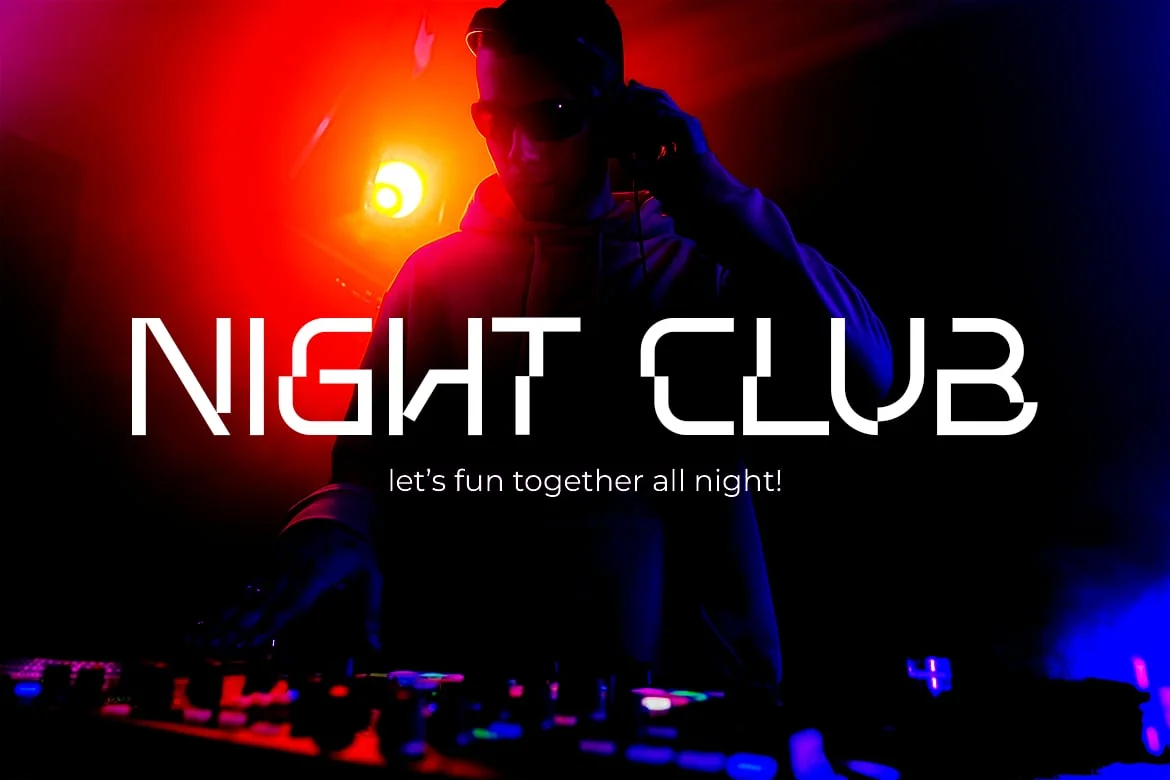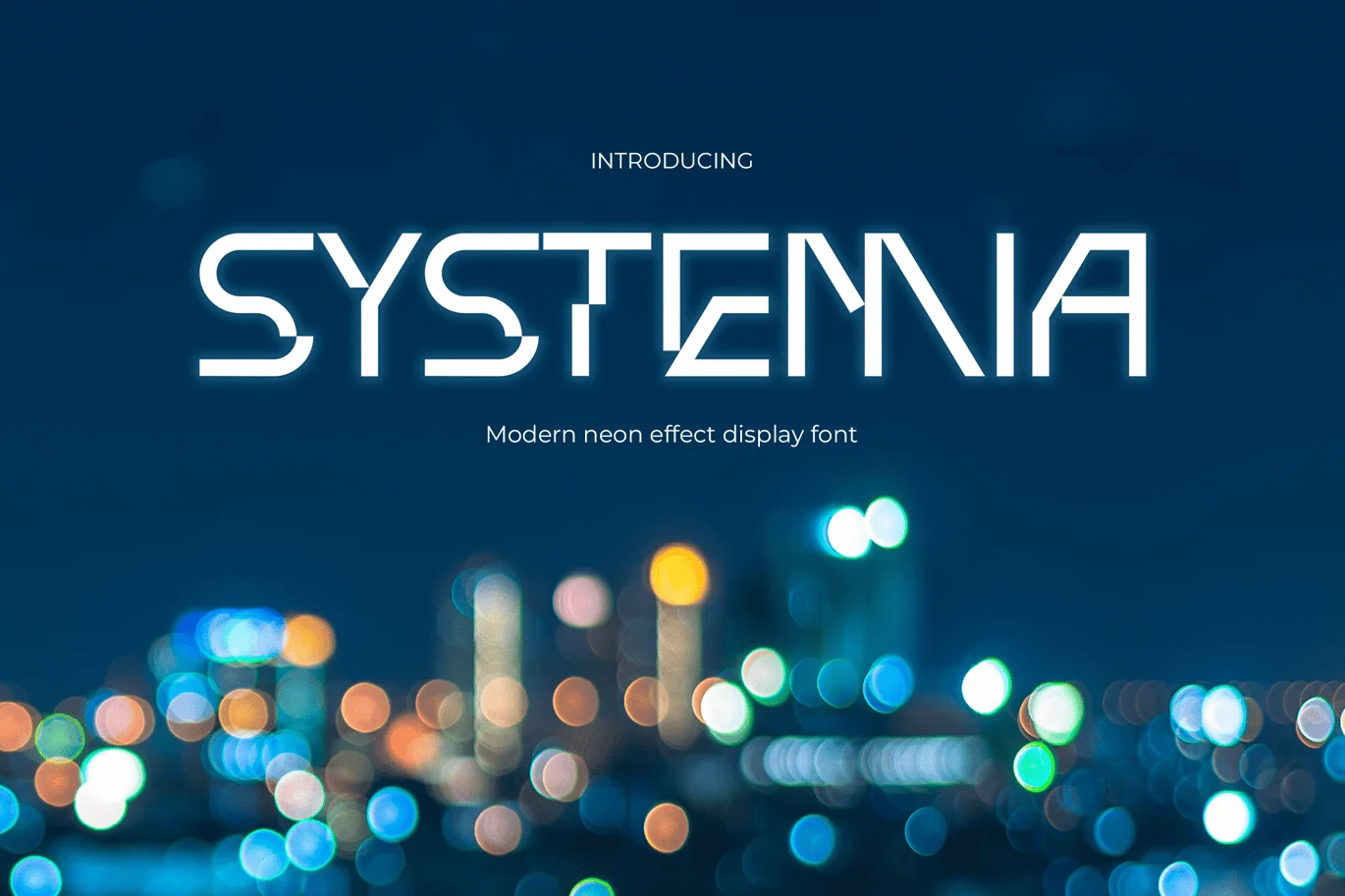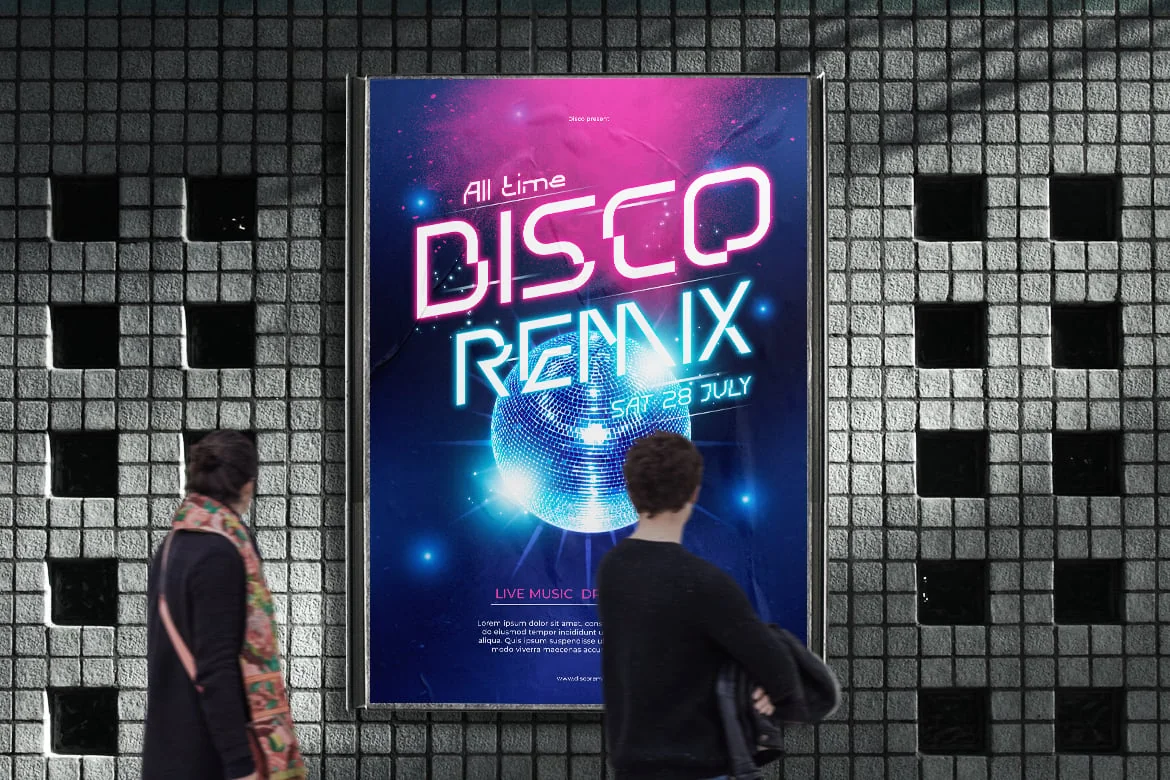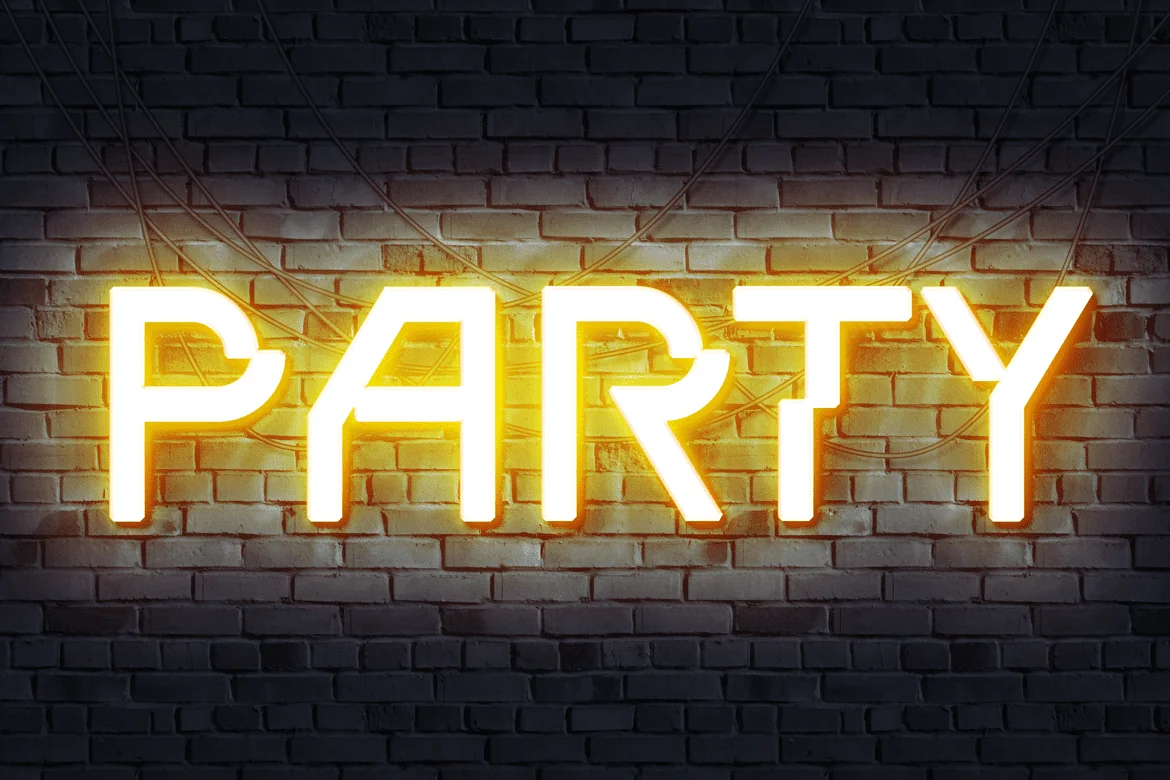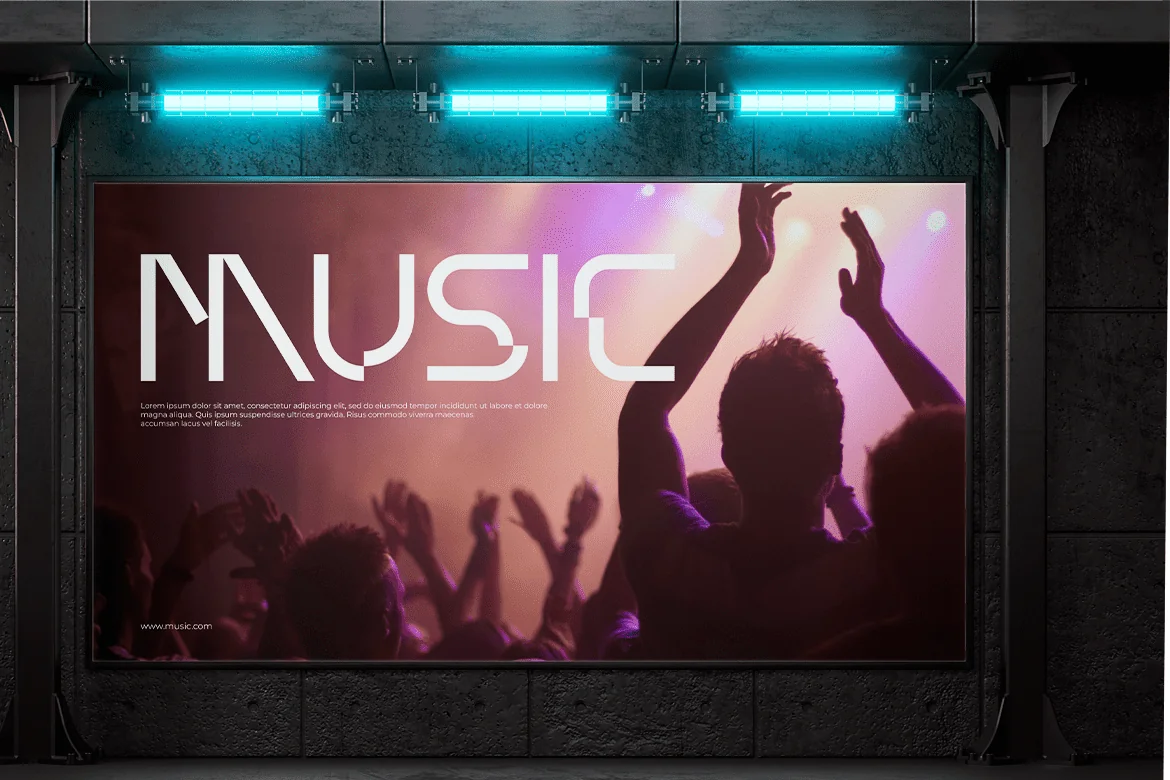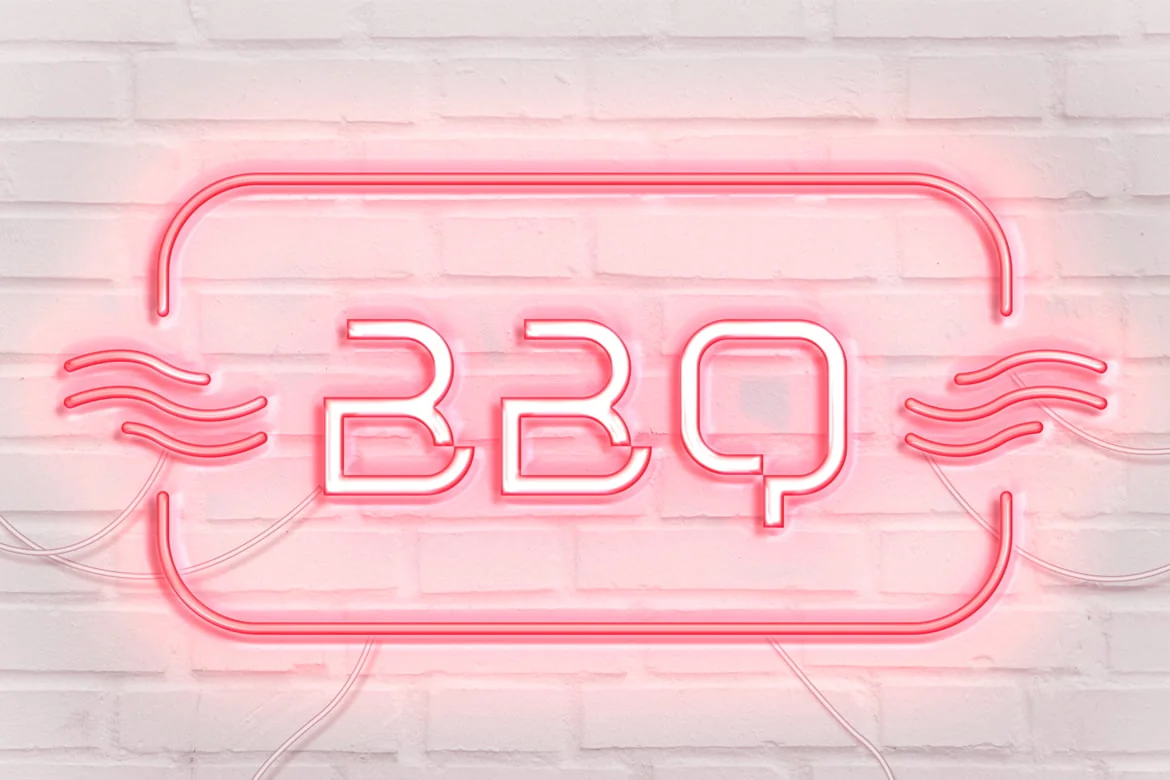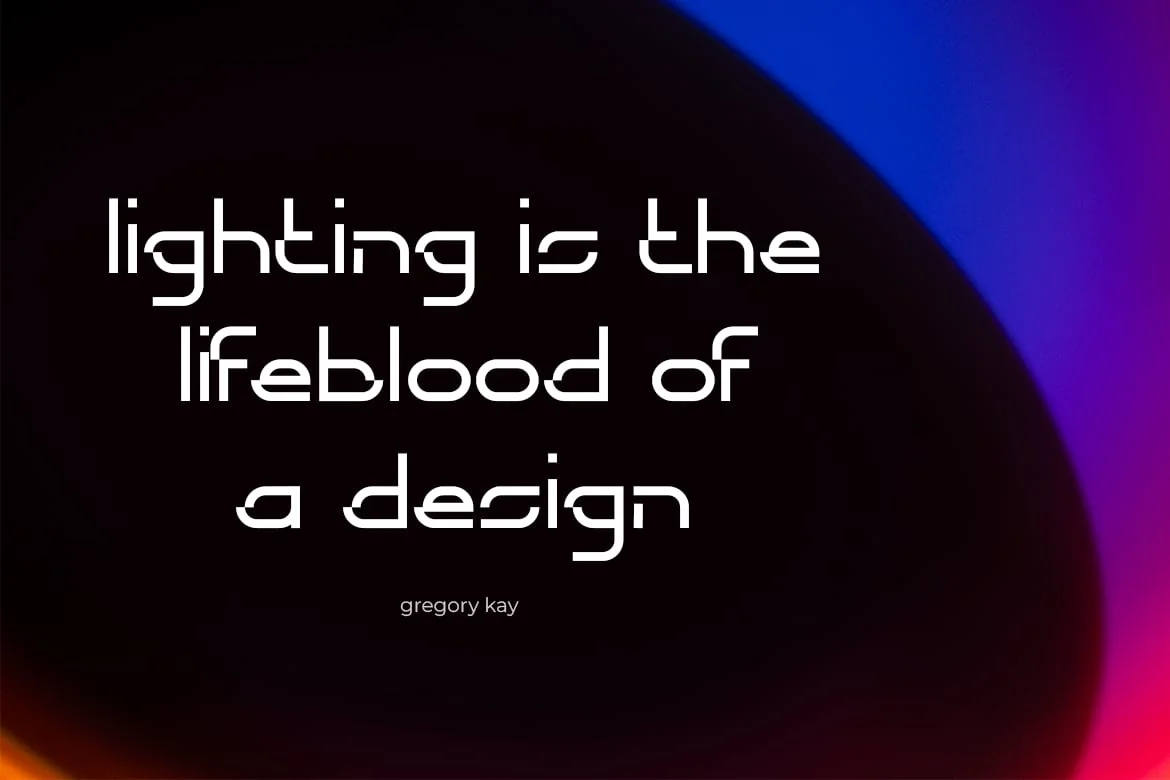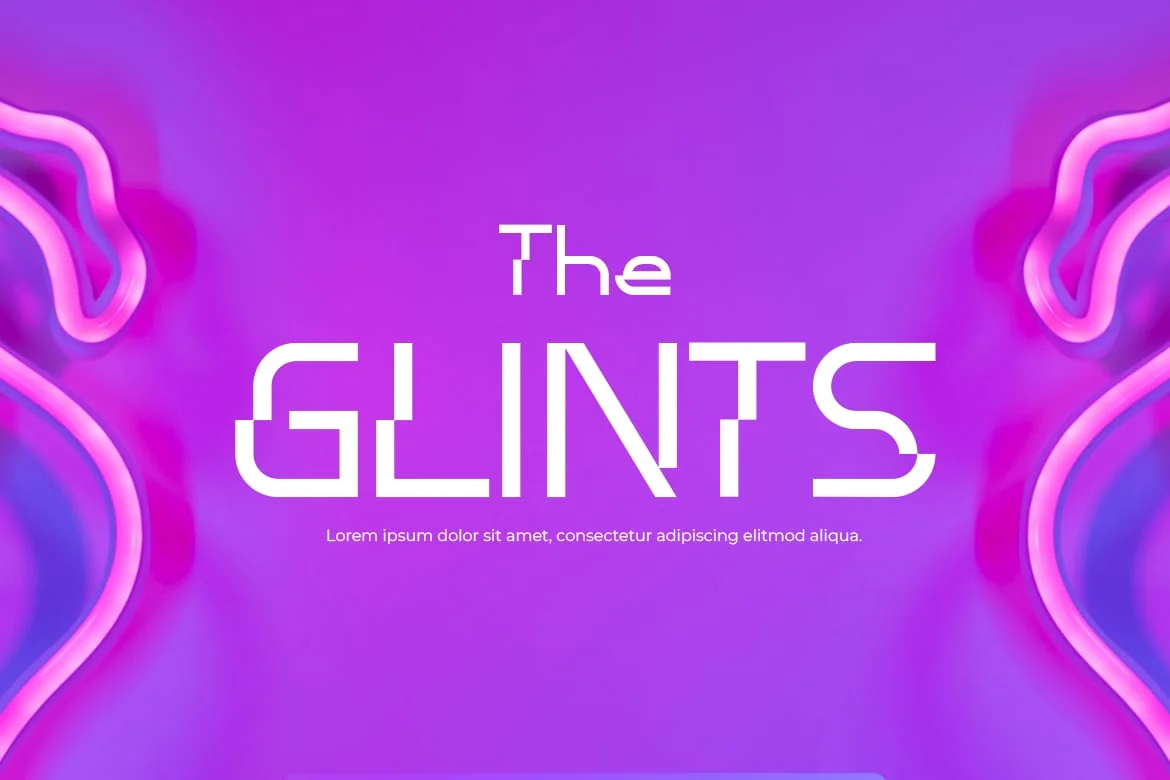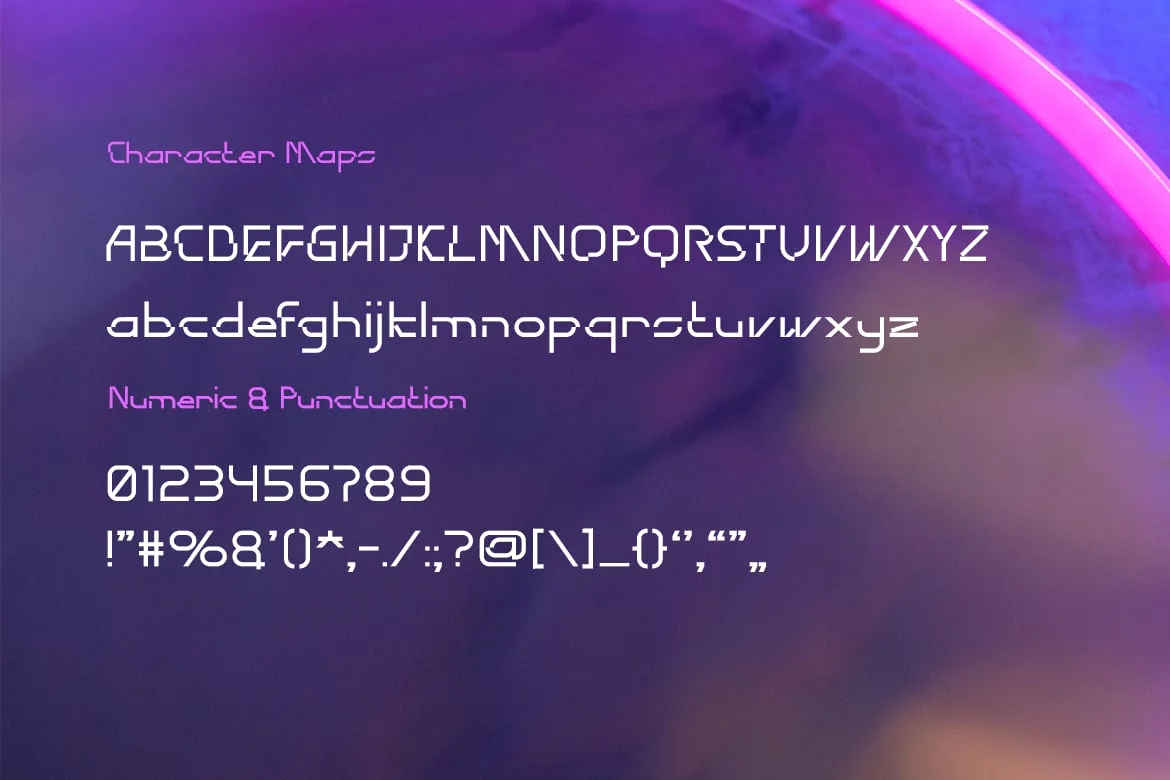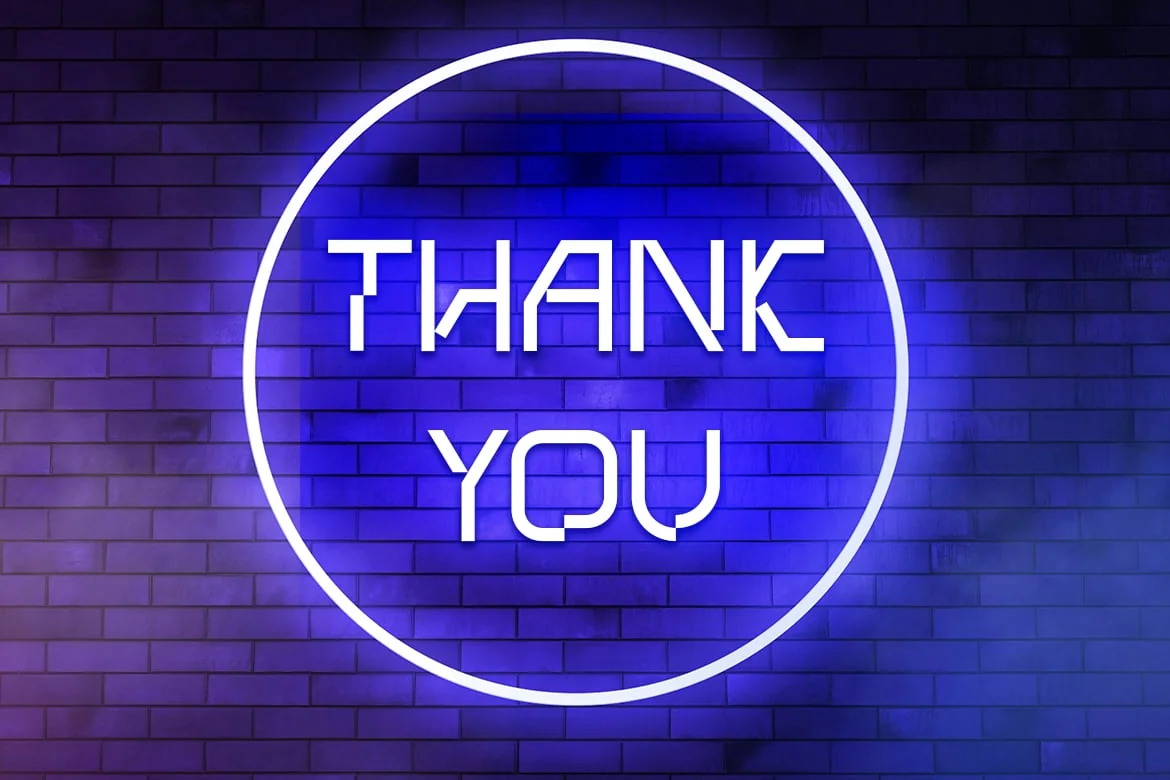
Systemia – Neon Music Font
The Systemia font is the perfect choice for anyone in the music industry looking to make a bold statement. With its neon-inspired design, modern feel, and futuristic look, Systemia is sure to electrify any design. Ideal for use in promotional materials, event flyers, social media posts, and more, this font will help you stand out in a crowd. Whether you’re a DJ, music promoter, or event planner, Systemia is the font you need to take your designs to the next level.